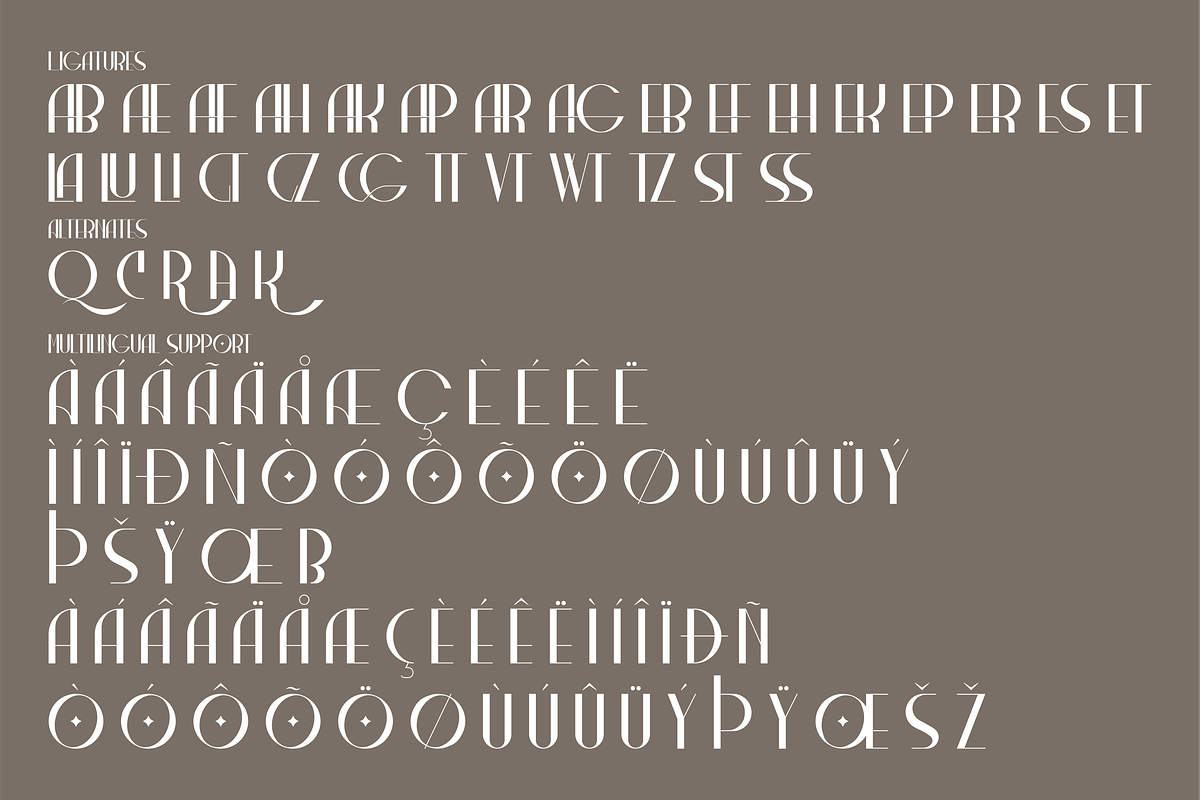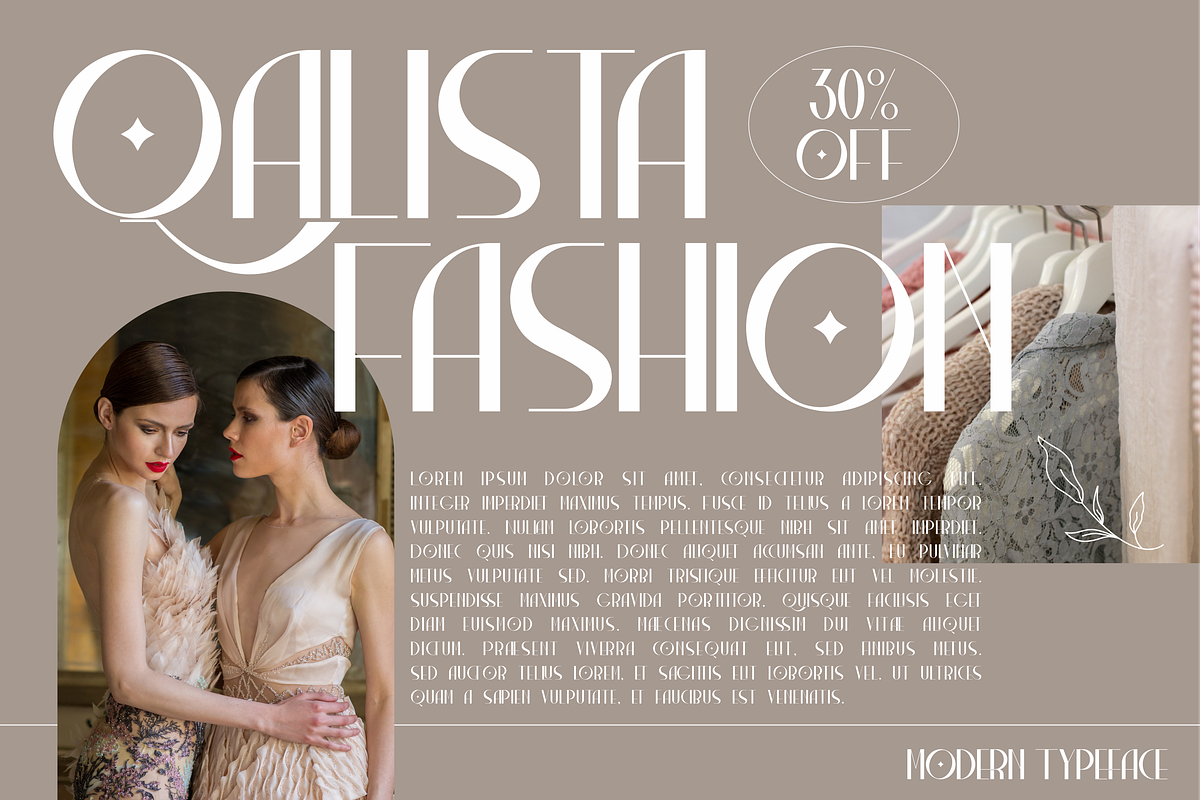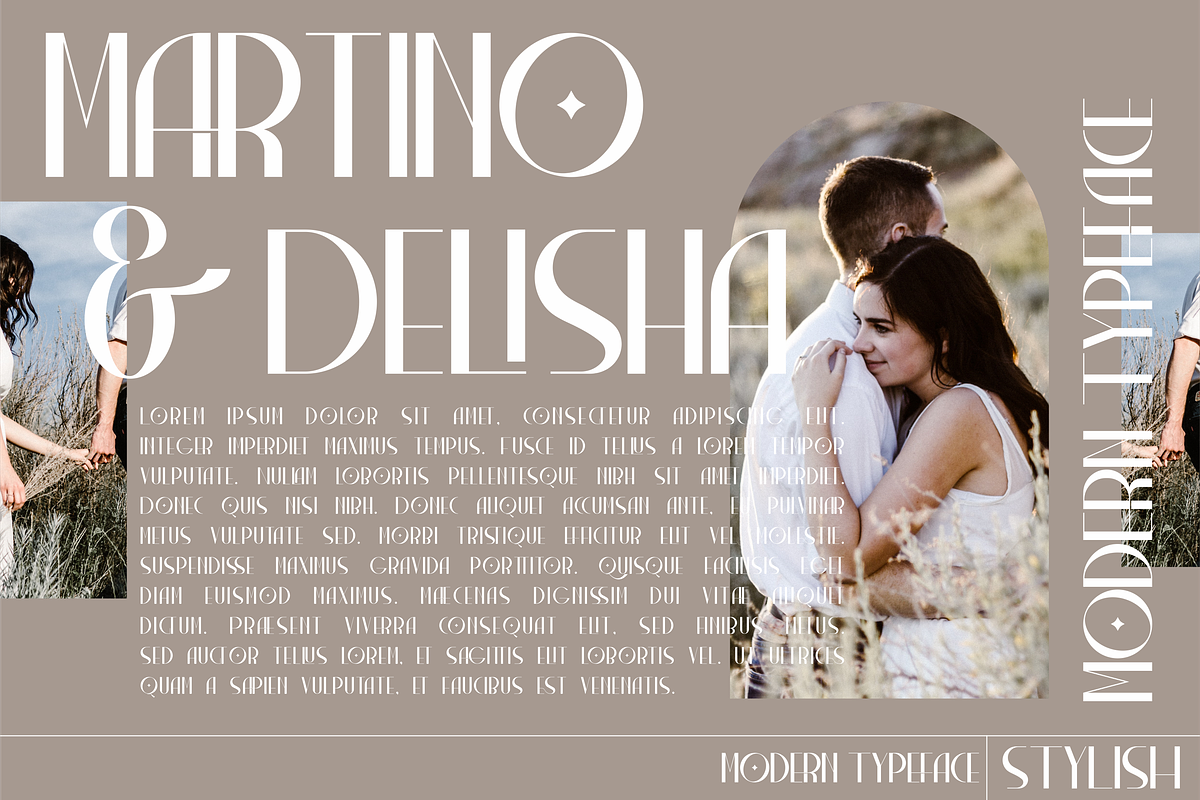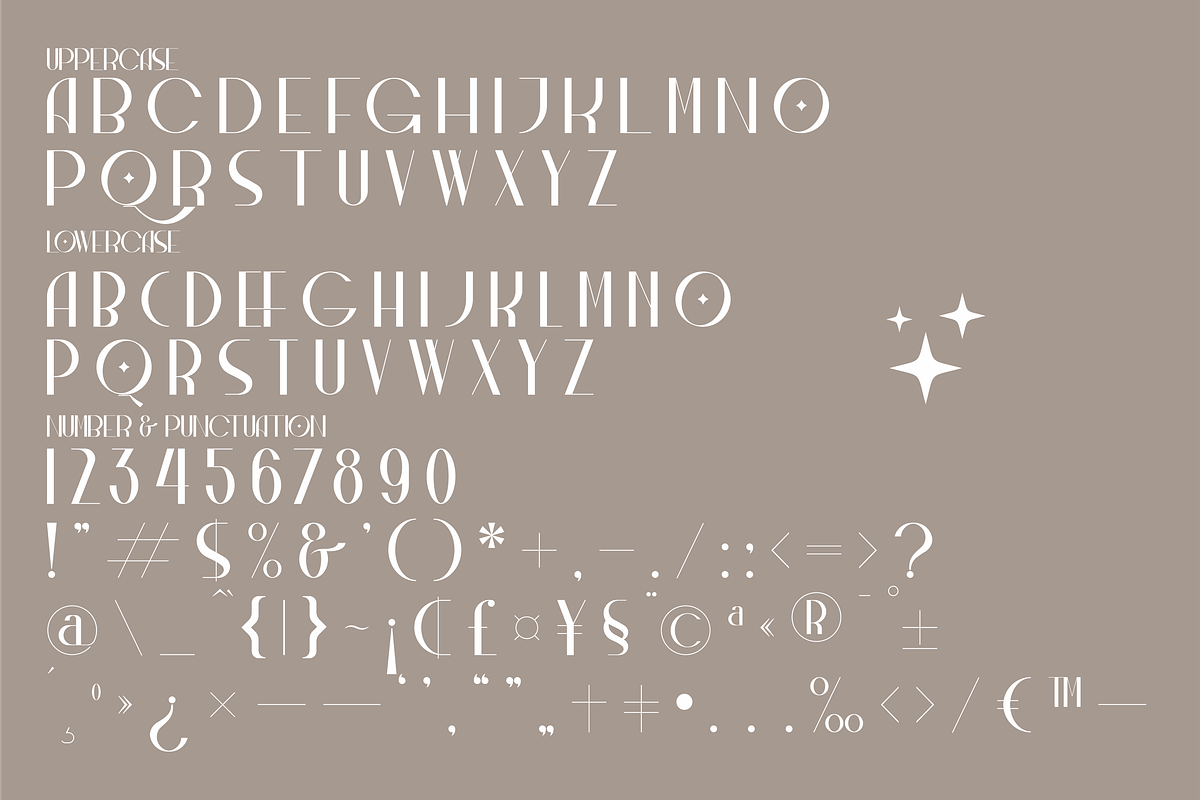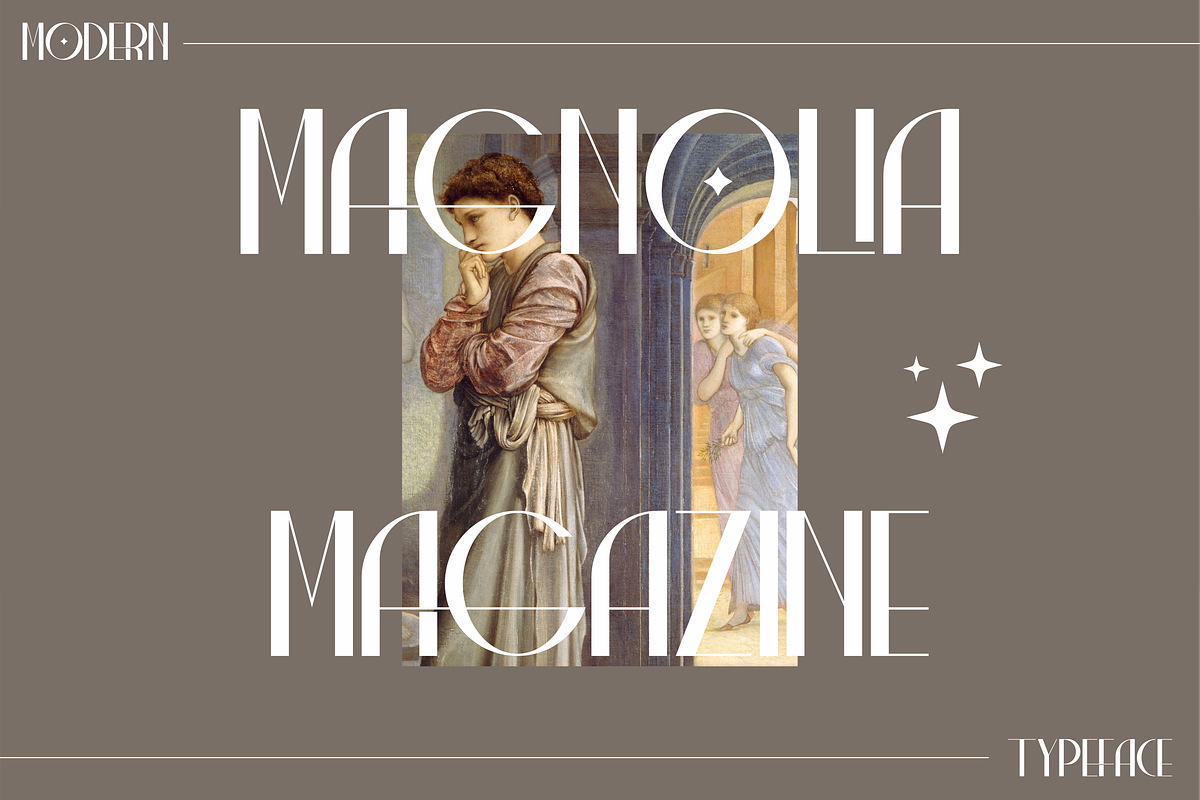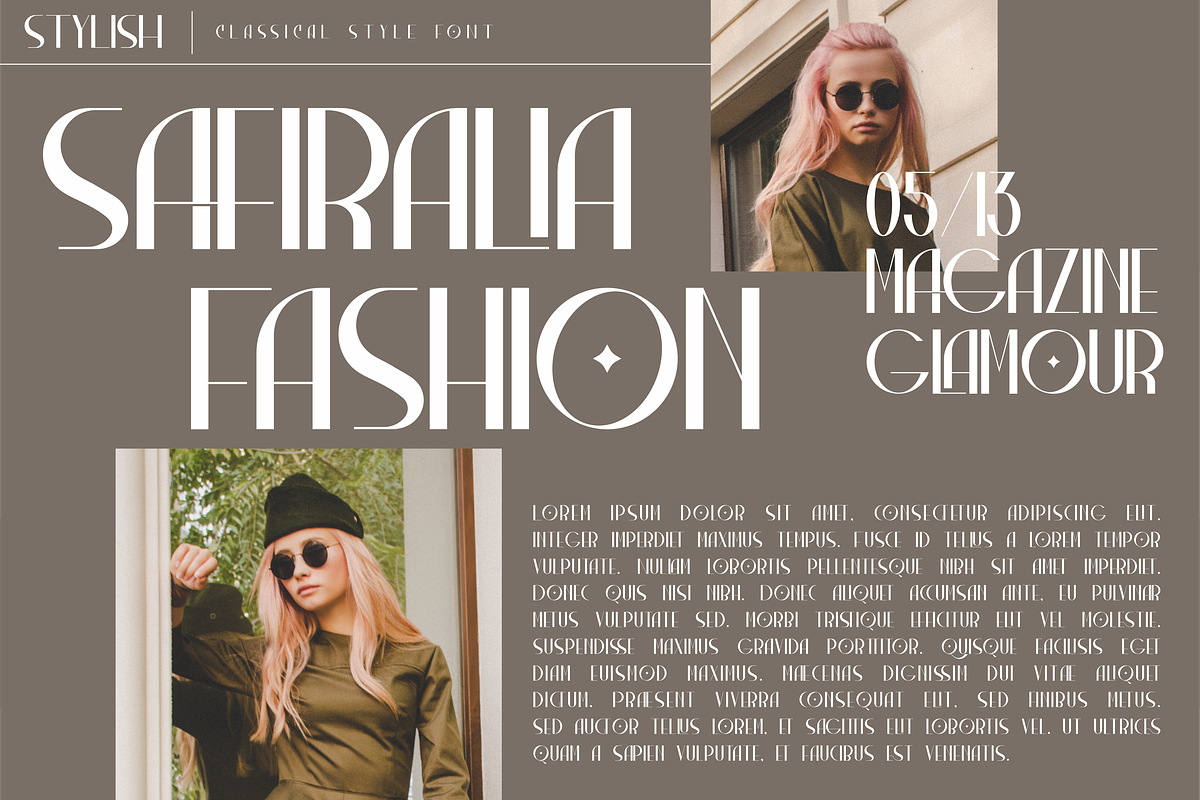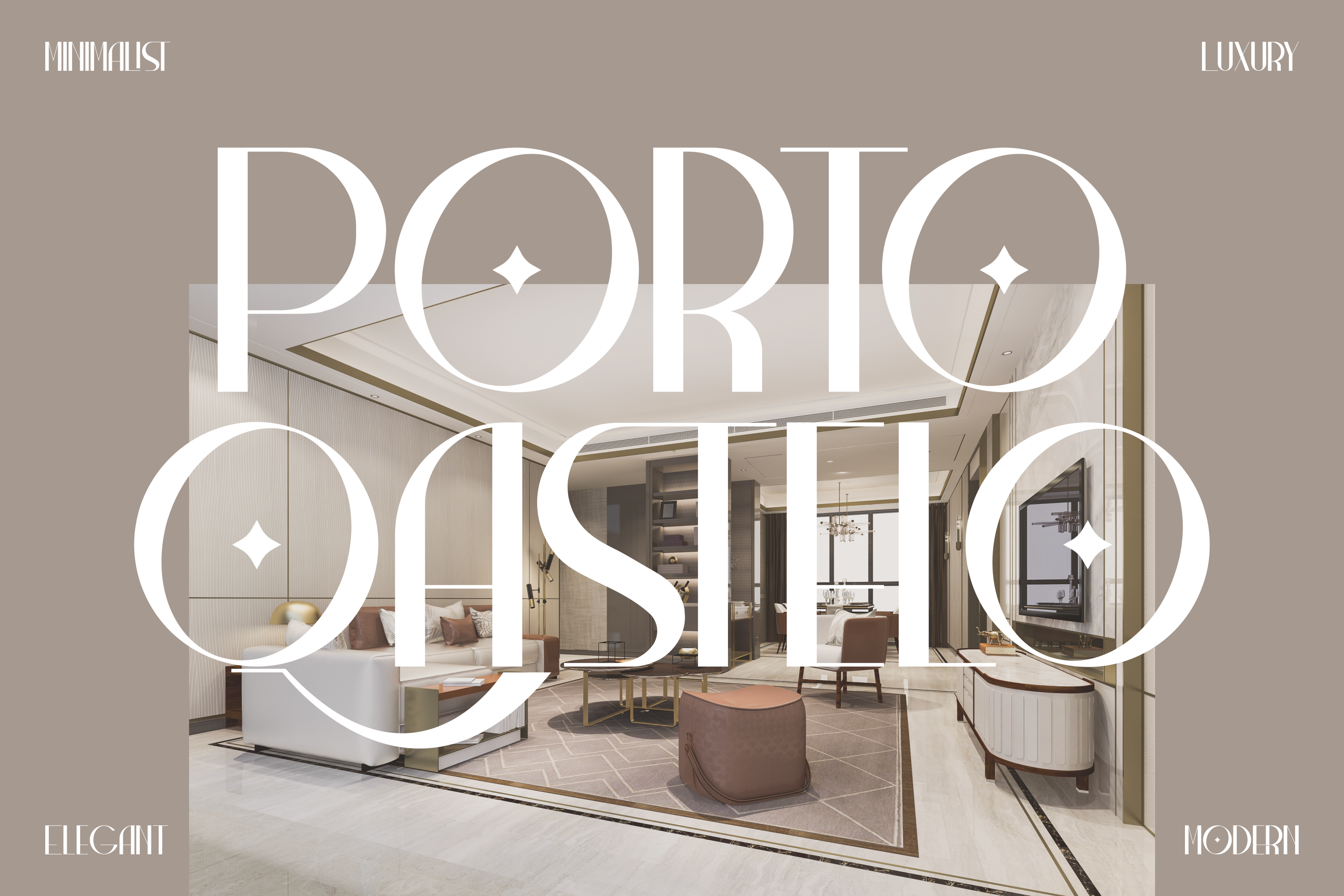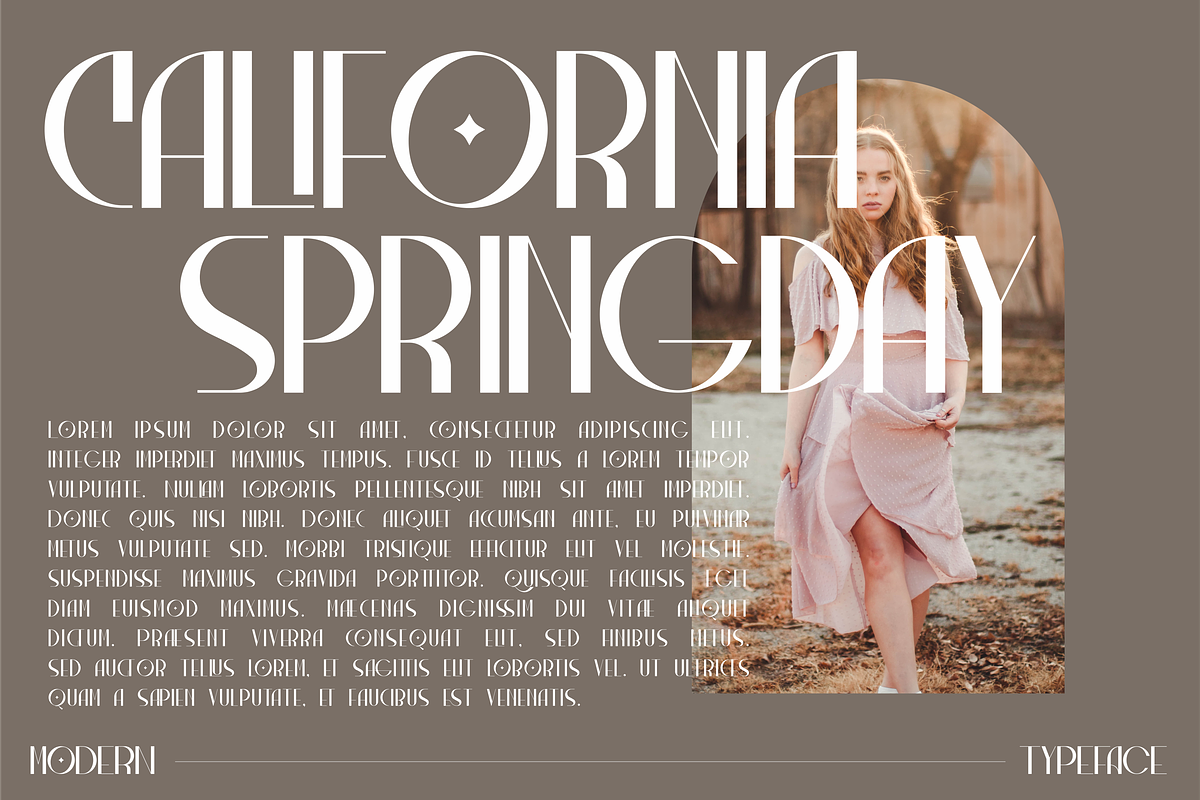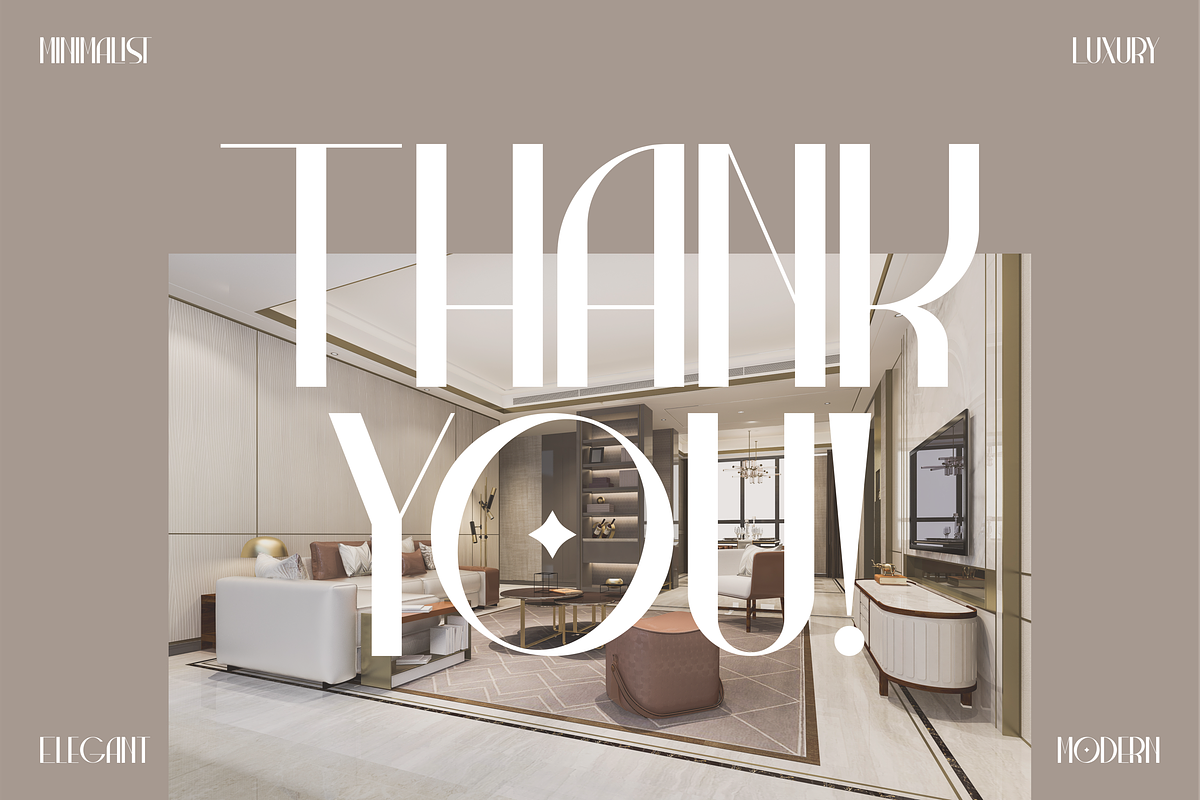
Porto Qastelo Modern Font
Proudly present Porto Qastelo Typeface, created by Storytype, A serif modern and classic typeface that has own unique style & modern look. This typeface is perfect for an elegant & luxury logo, book or movie title design, fashion brand, magazine, clothes, lettering, quotes, and so much more.